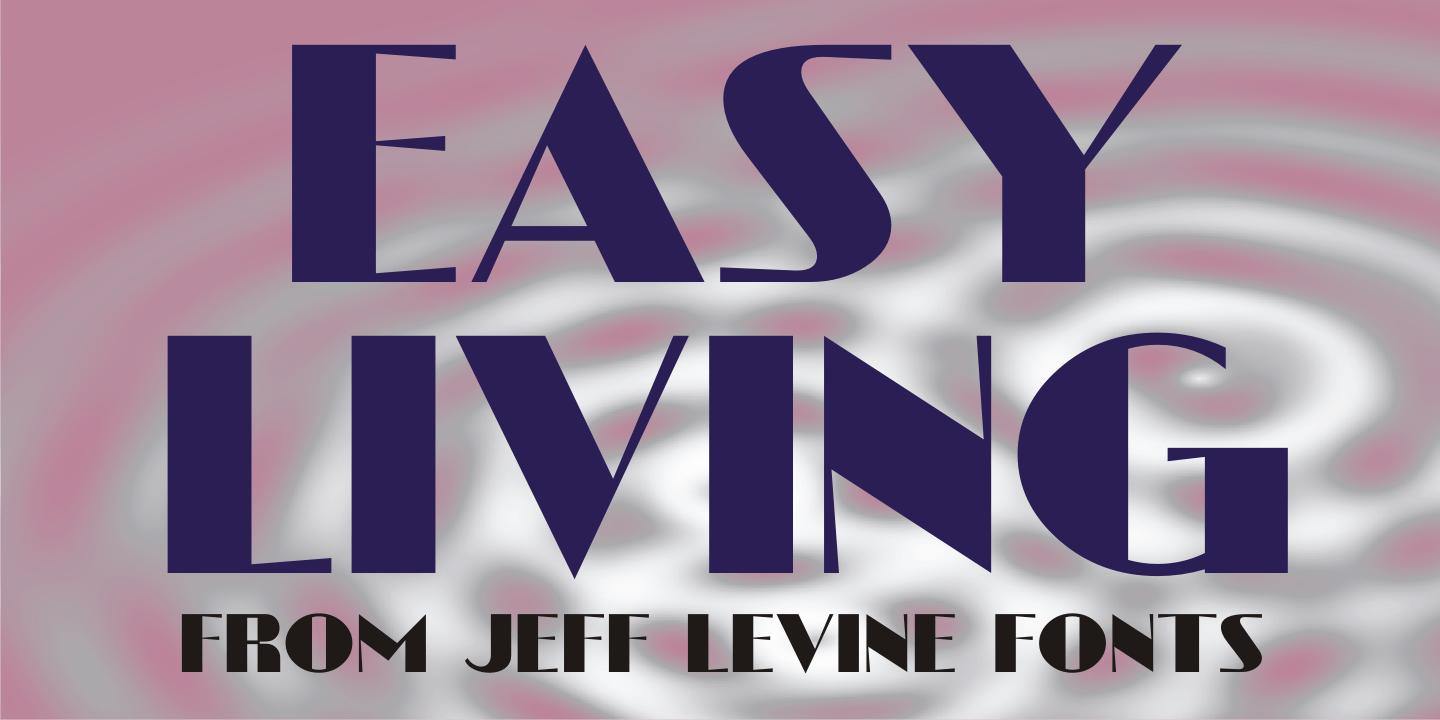
Easy Living
Easy Living JNL is a bold Art Deco type face modeled from the name of a 1930s magazine entitled "Country Living".
Easy Living by Jeff Levine Fonts